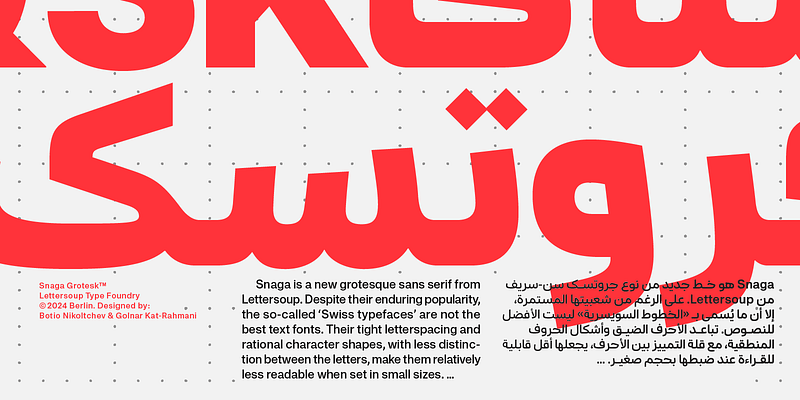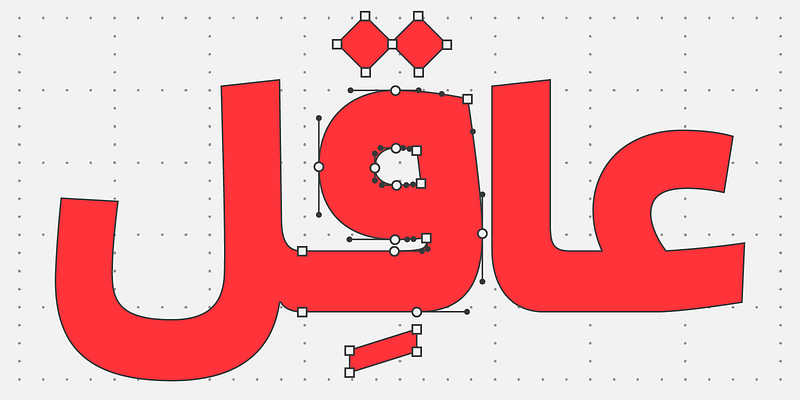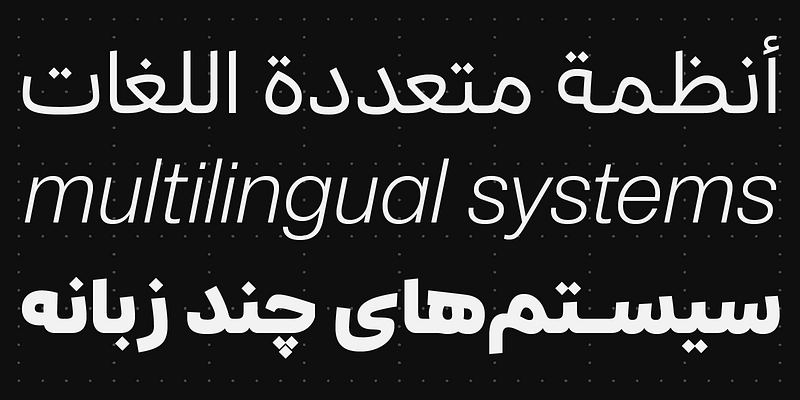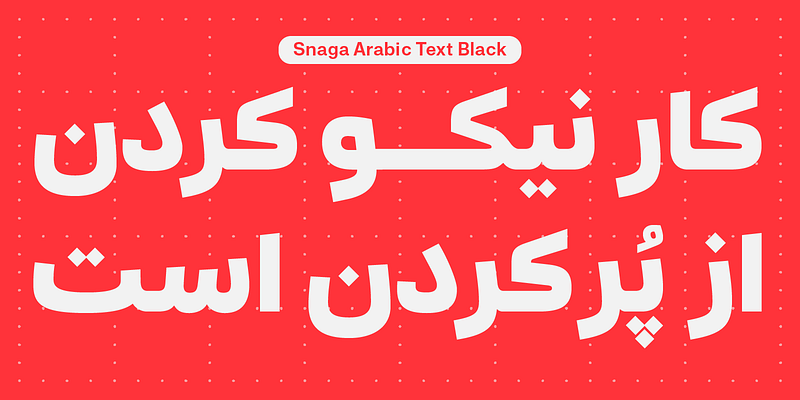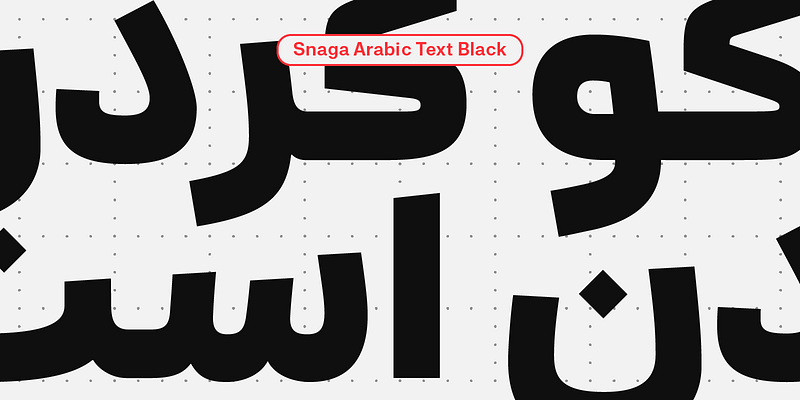
Snaga Grotesk broadens its horizons linguistically, as it now supports Arabic, and artistically, thanks to the addition of exciting unicase variants for Latin, Greek, and Cyrillic.
While the presence of decorative elements makes most Arabic fonts look quite playful, Snaga Arabic aims to be a highly readable and reliable voice for serious interactions with the reader. Designed in collaboration with Berlin-based Iranian designer Golnar Katrahmani, it is a dynamic Arabic with a subtle reverse contrast. The typeface judiciously combines open and closed forms to achieve optimal readability in smaller type sizes. One of its primary goals was to have the original Snaga and the Arabic complement mix seamlessly so that Latin words don’t stand out in Arabic text. By introducing Snaga Grotesk’s characteristic shapes and curves into the Arabic script, Snaga Arabic turned into an ‘Arabic grotesk’, a rare, valuable style in the typographic landscape. Use Snaga Arabic to project stability and confidence.